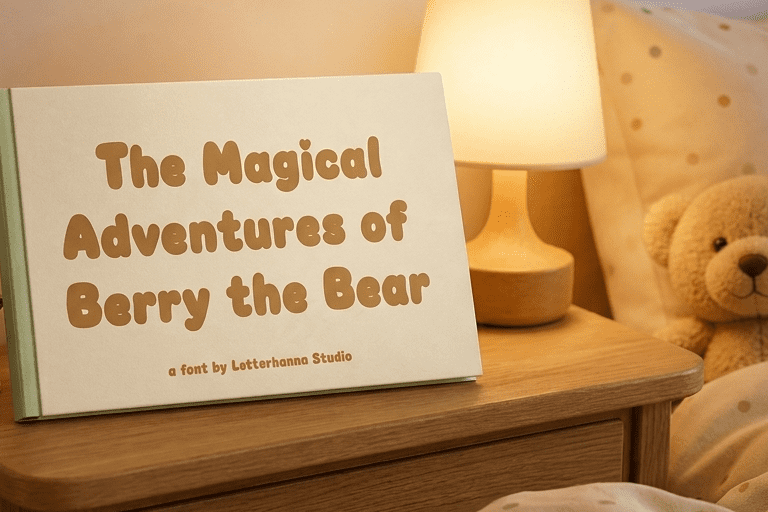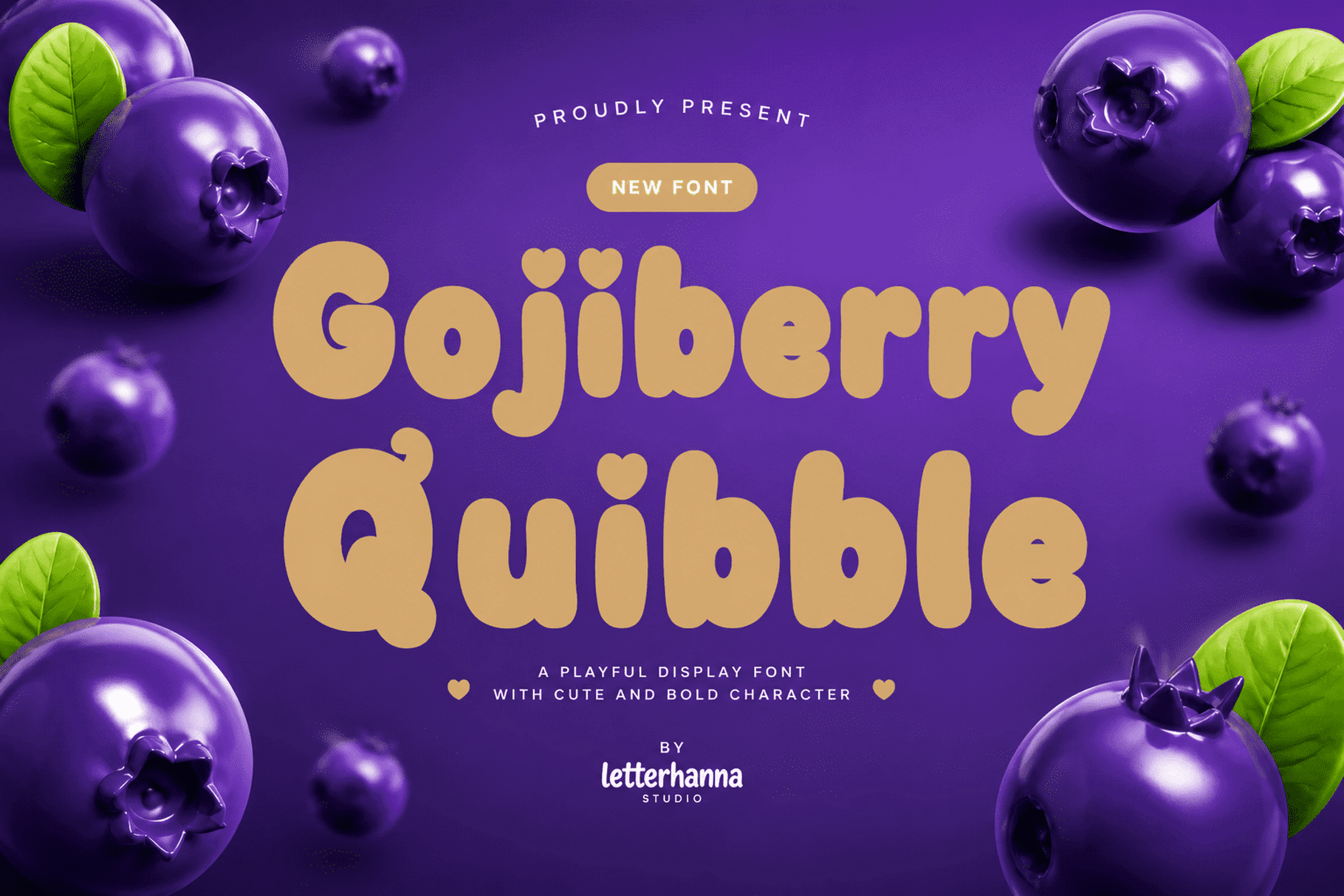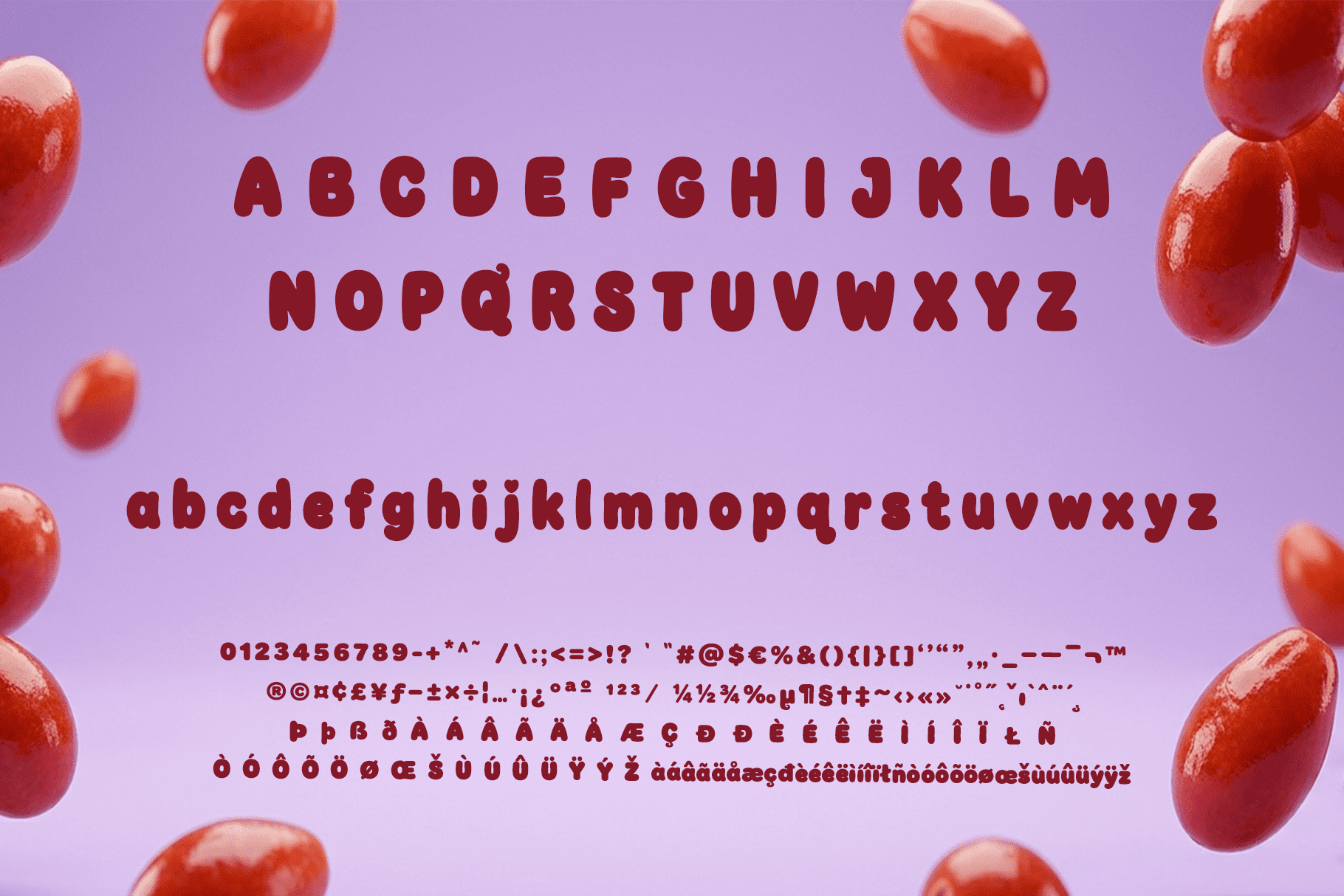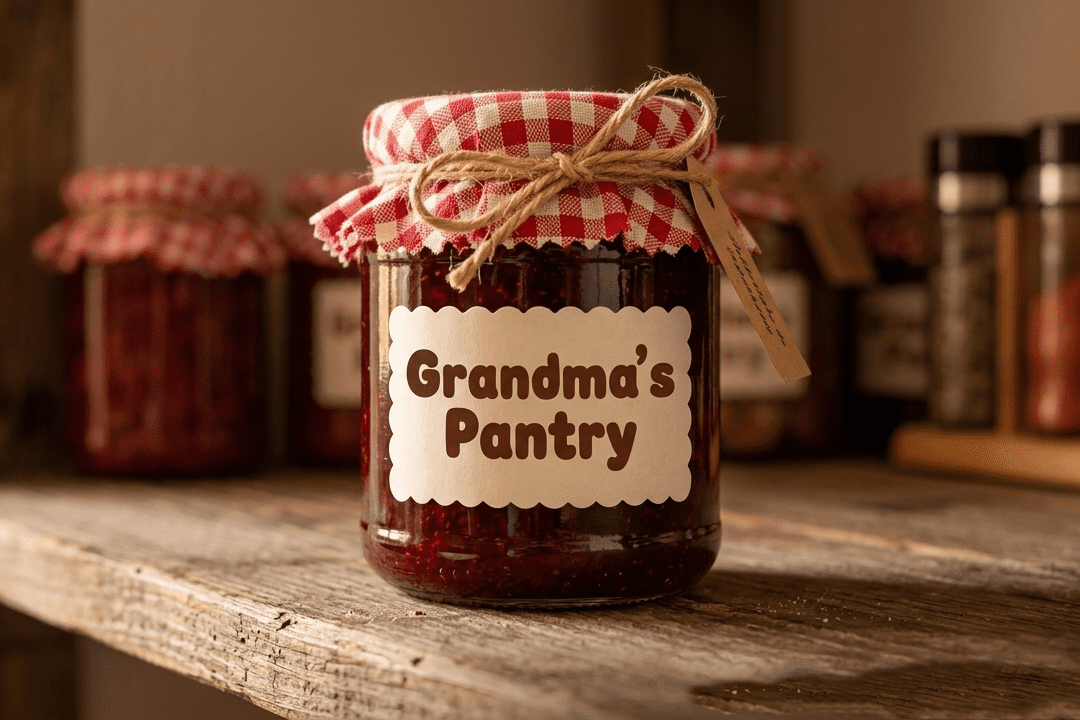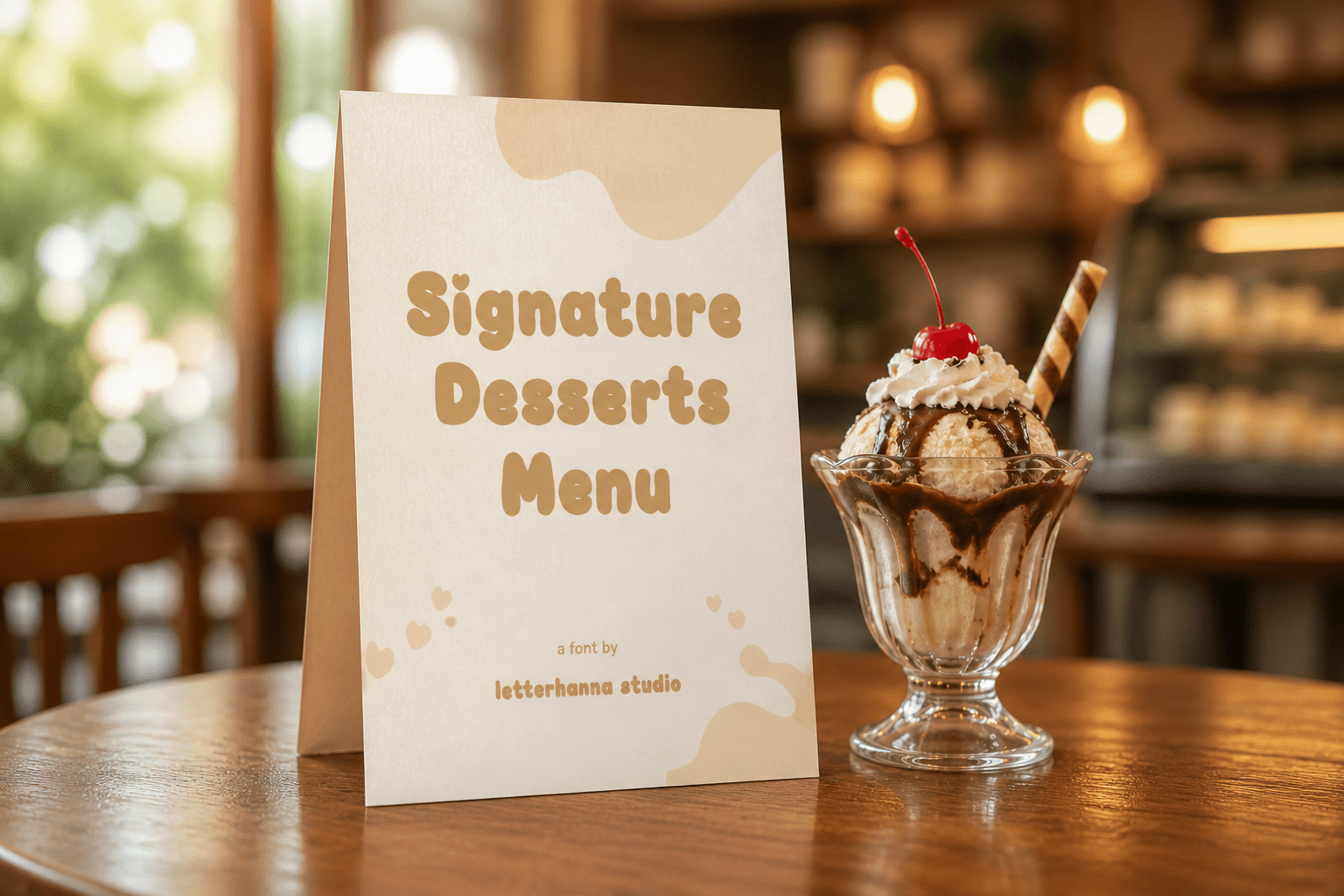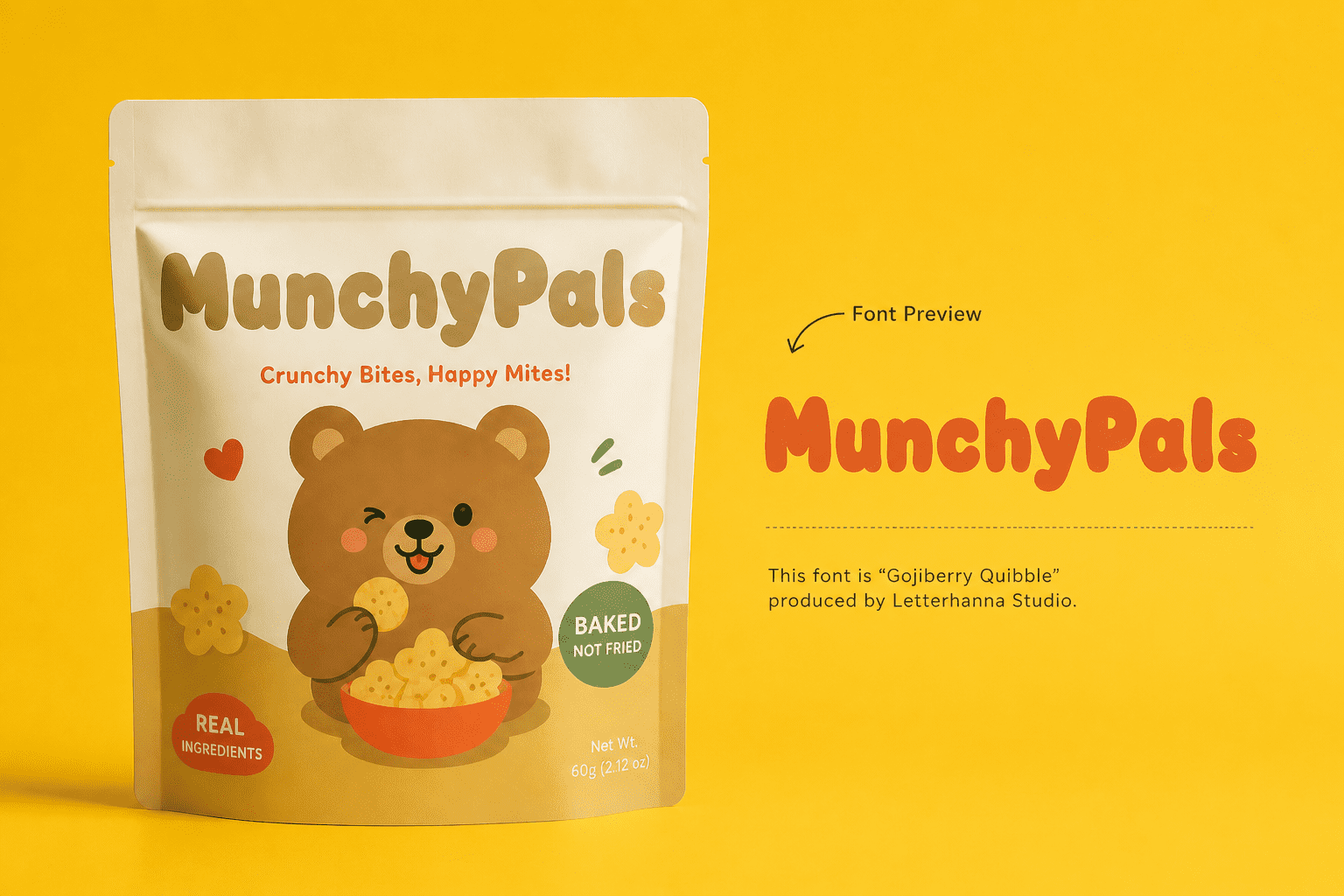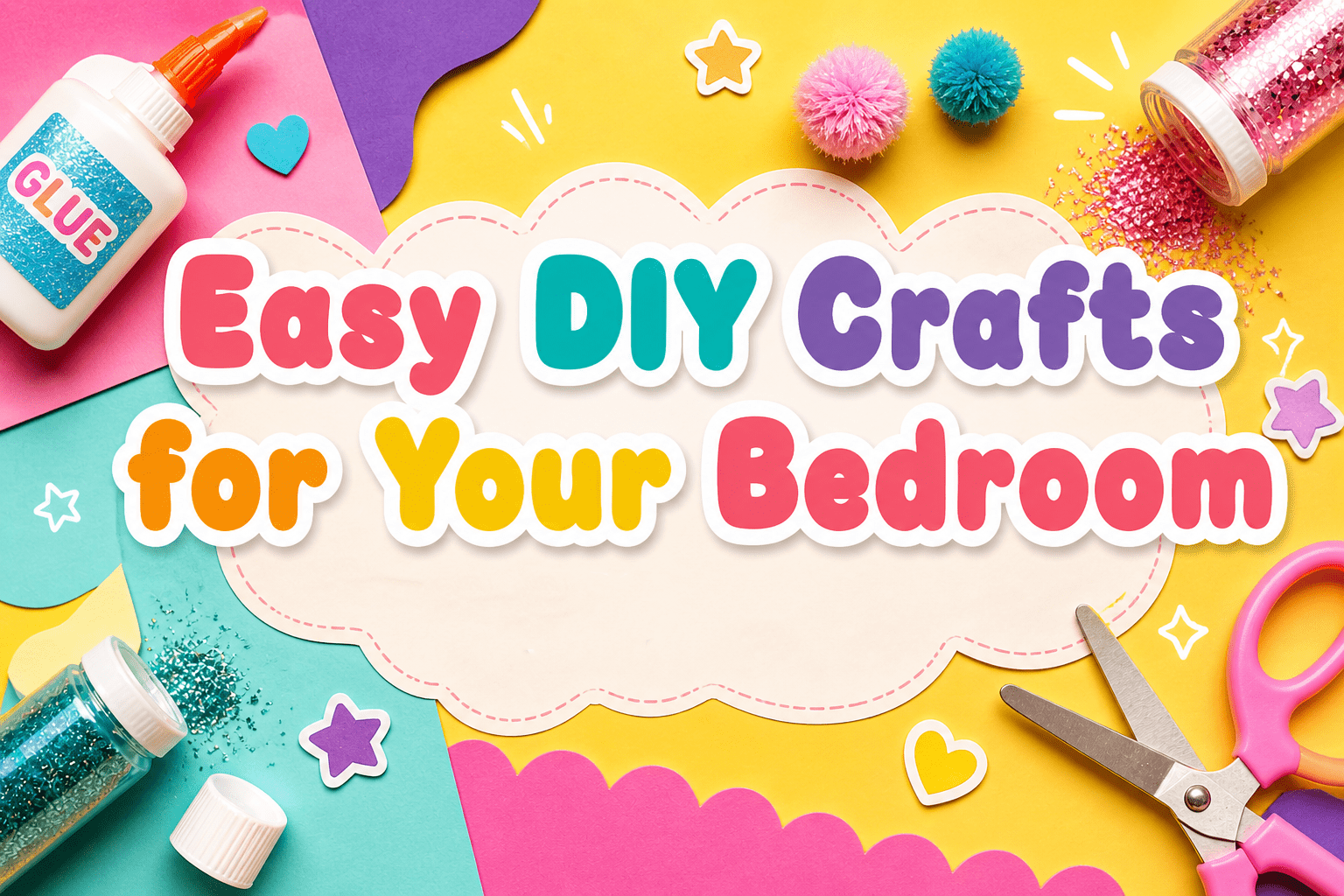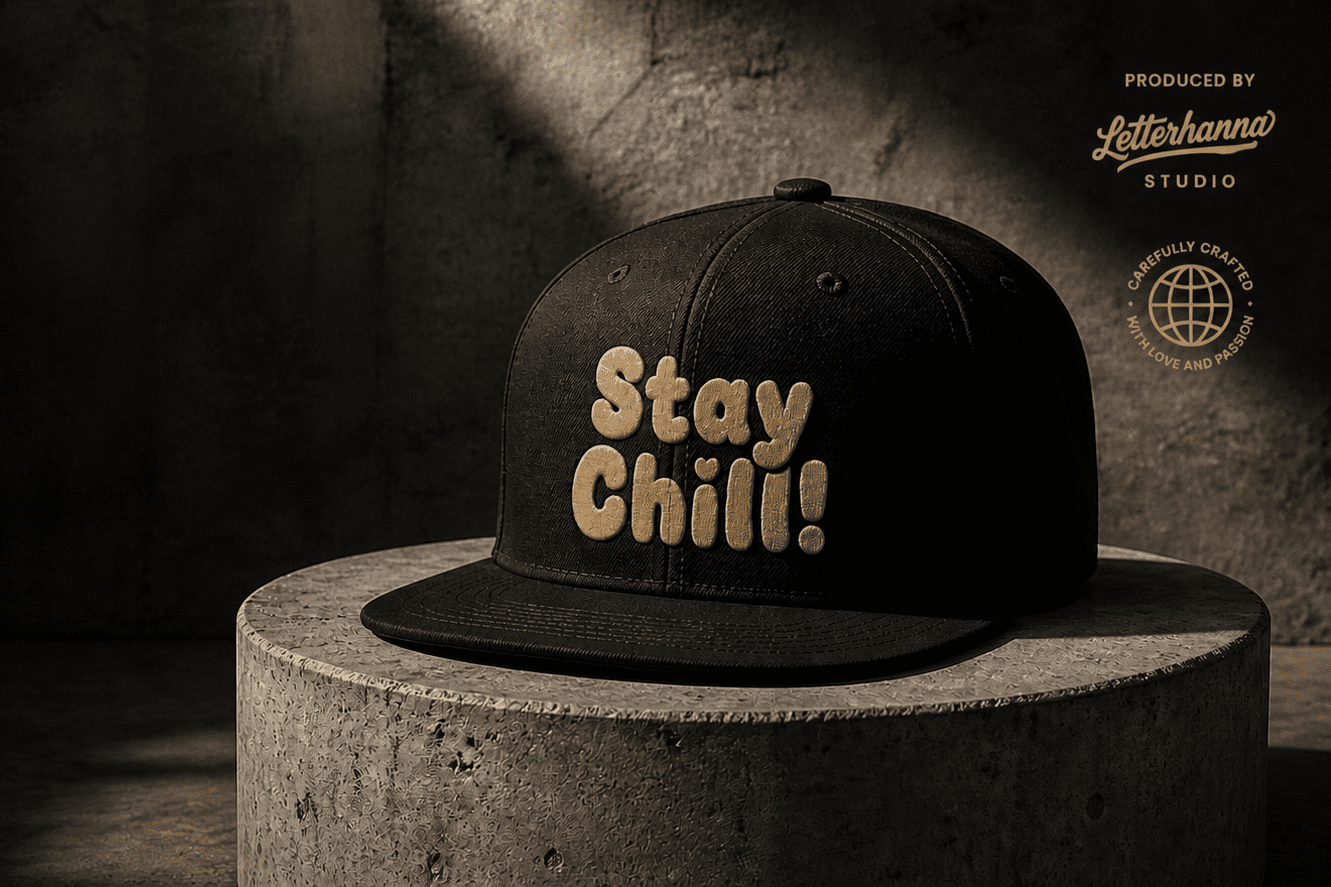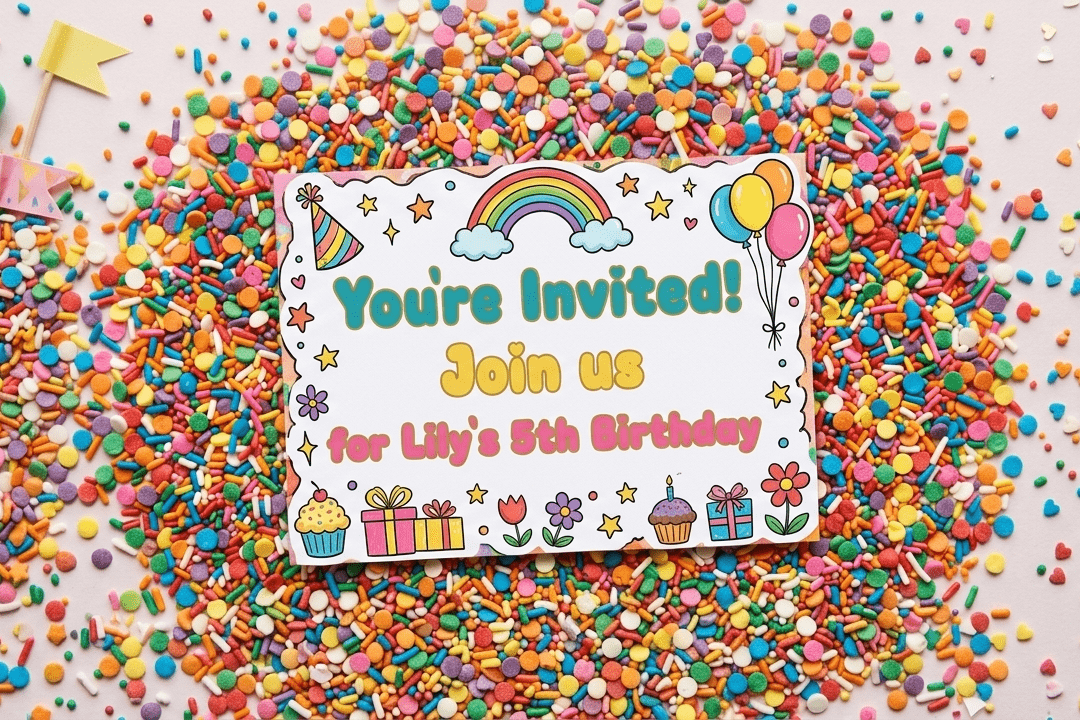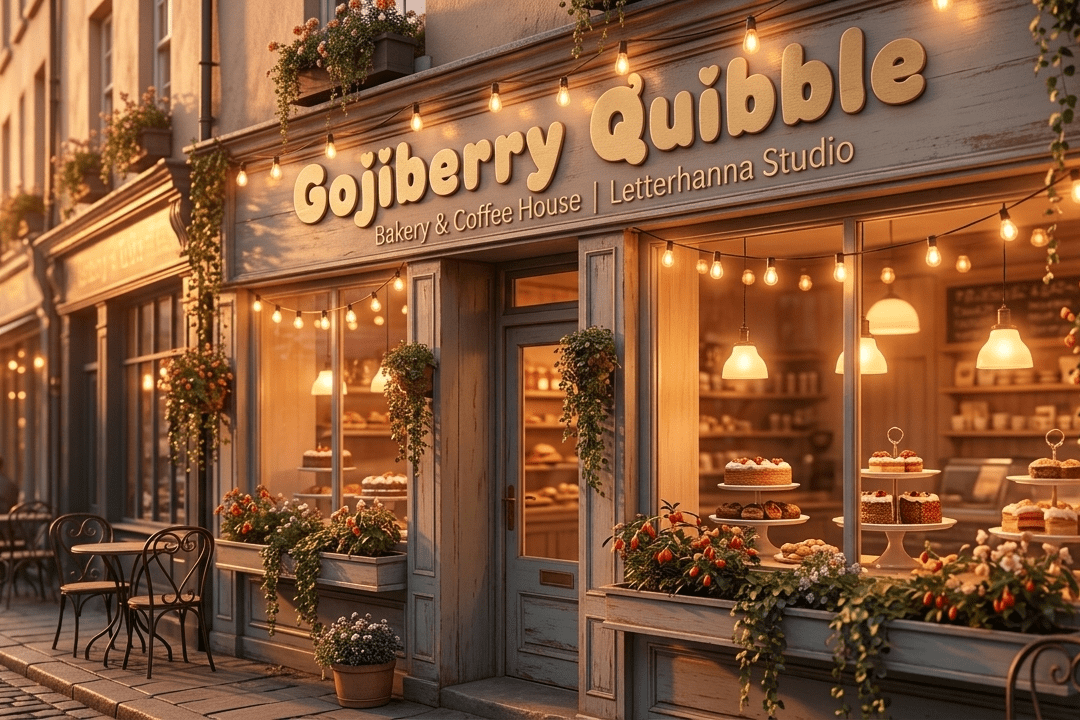
Some fonts whisper. Gojiberry Quibble laughs out loud.
Built for the bold, the bright, and the beautifully chaotic world of kids’ design, Gojiberry Quibble is a chunky, rounded display font that brings instant joy to everything it touches. Whether you’re designing a birthday party invitation, a children’s book cover, a classroom poster, or a playful brand identity β this font does the heavy lifting with a smile.
The letterforms are thick, bouncy, and deliberately imperfect in the most charming way. Every curve is soft. Every edge is friendly. The weight feels substantial without being aggressive β like a gummy bear that went to the gym.
What makes Gojiberry Quibble different?
Most bubbly fonts sacrifice legibility for style. Gojiberry Quibble keeps both. The generous letter spacing and open counters make it readable at any size β from a 10px caption on a sticker sheet to a 200px headline on a banner. It performs just as well on screen as it does in print.
Perfect for:
Children’s books, games, and apps
Party invitations and event branding
Toy packaging and product labels
Educational materials and classroom decor
Social media graphics and YouTube thumbnails
Sticker packs and merchandise
Full uppercase and lowercase, numerals, punctuation, and multilingual support for Western European languages.
Gojiberry Quibble doesn’t just fill space on a page β it fills the room with energy. It’s the font your designs have been asking for, even if they didn’t know it yet.